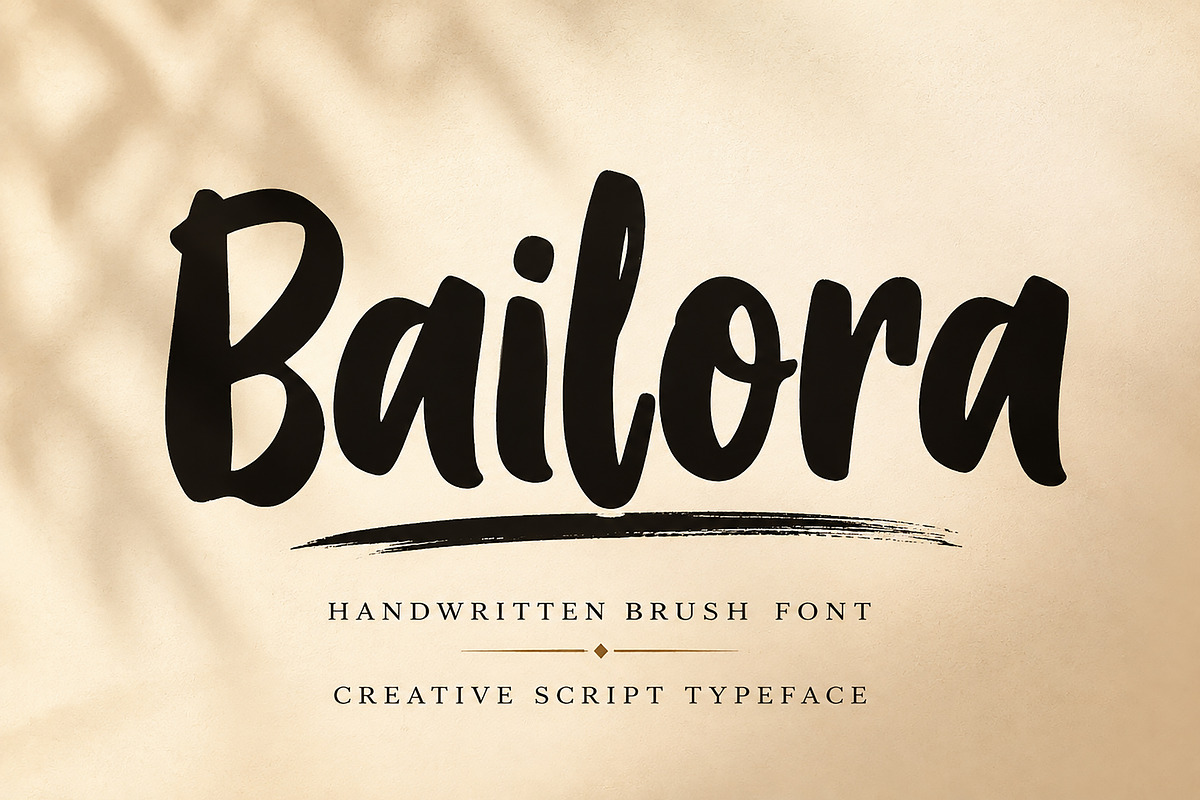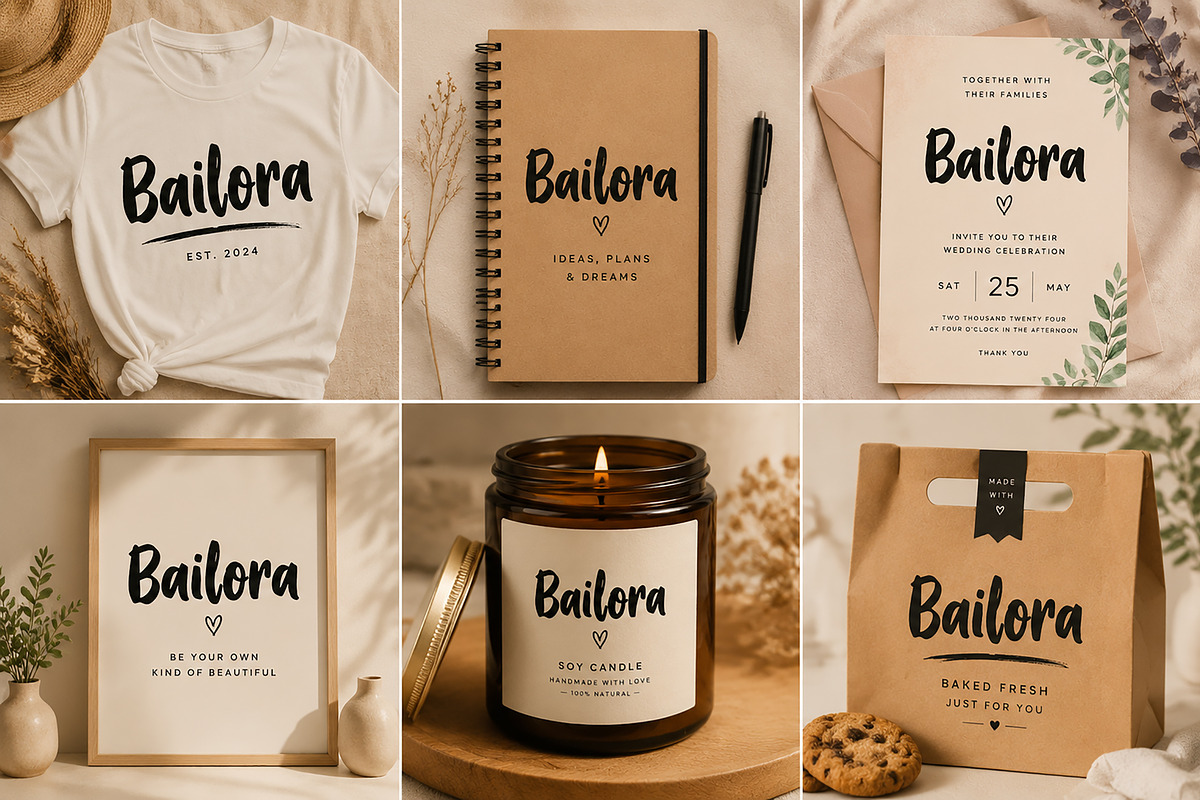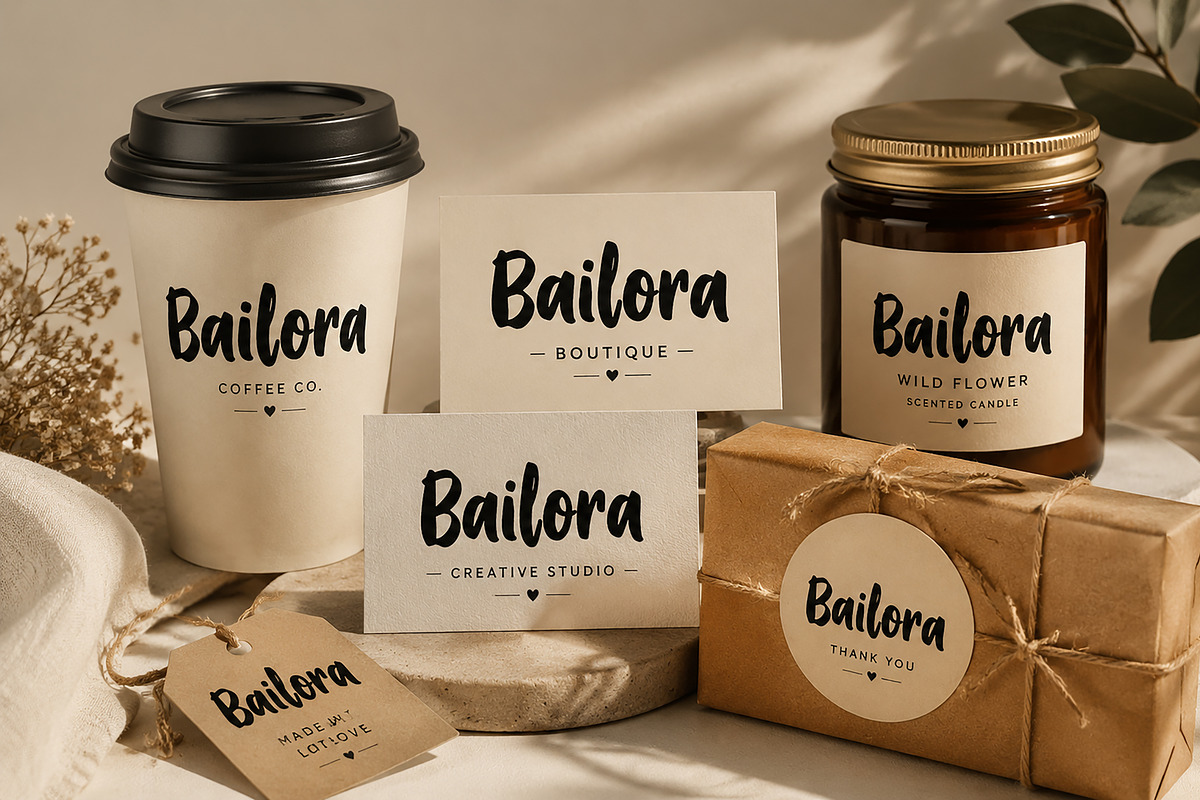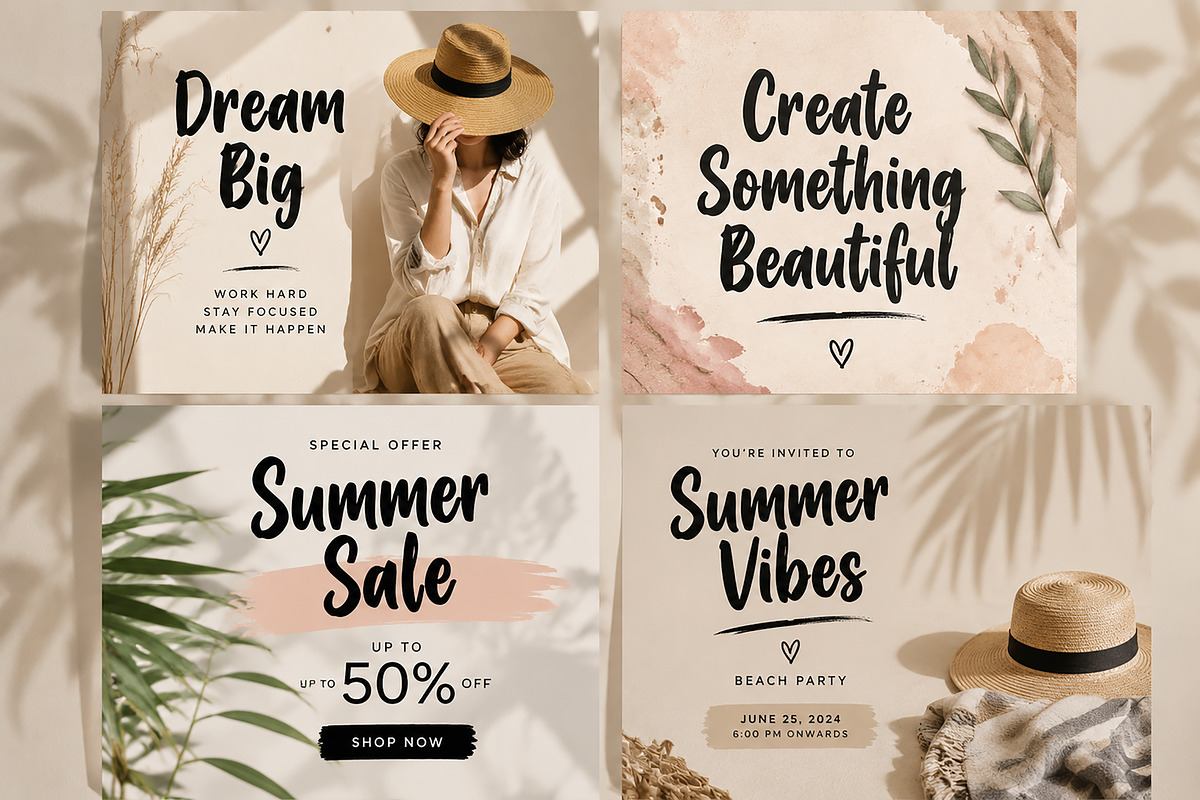
Bailora
Bailora – Handwritten Brush Font
Bailora is a bold and expressive handwritten brush font designed to bring a natural, creative, and personal touch to your designs. With its smooth strokes, playful curves, and authentic handmade feeling, Bailora is perfect for projects that need a stylish and memorable look.
This font is ideal for branding, logo design, packaging, social media graphics, posters, invitations, apparel, product labels, and creative marketing materials.
Whether you are creating a boutique brand identity, a lifestyle product, a fashion collection, or a personal project, Bailora adds a unique handcrafted personality to every design.
✓ Logo & Branding Design
✓ Boutique & Lifestyle Brands
✓ Fashion Projects
✓ Packaging & Labels
✓ Social Media Posts
✓ Wedding Invitations
✓ Posters & Flyers
✓ T-Shirt Design
✓ Quotes & Typography Artwork
✓ Creative Advertising Materials
✓ Bold Handwritten Brush Style
✓ Smooth and Natural Letter Shapes
✓ Modern Creative Script Look
✓ Professional Display Typeface
Bring your designs to life with Bailora — a modern handwritten brush font made for creative brands, stylish visuals, and unforgettable designs.